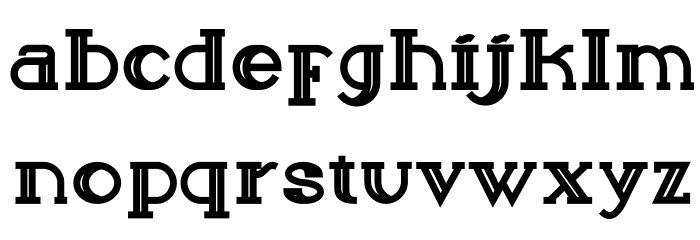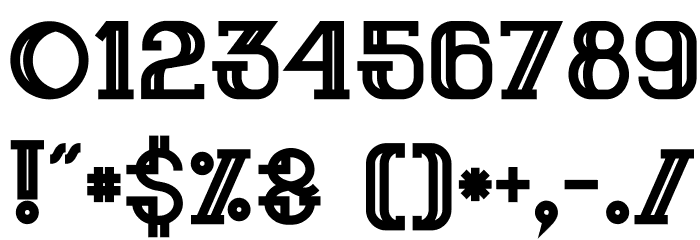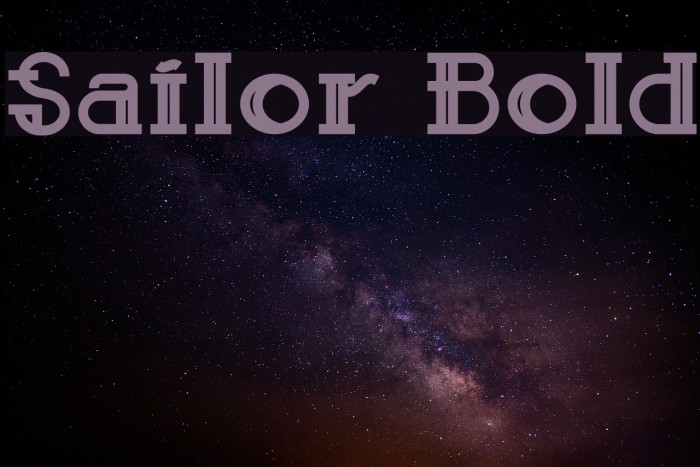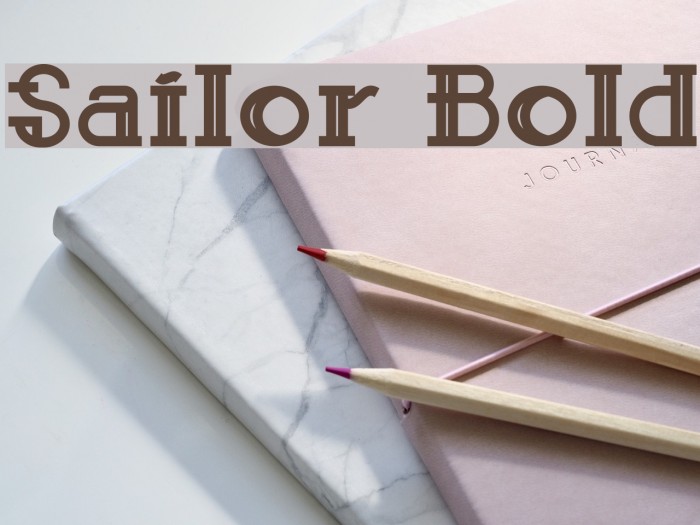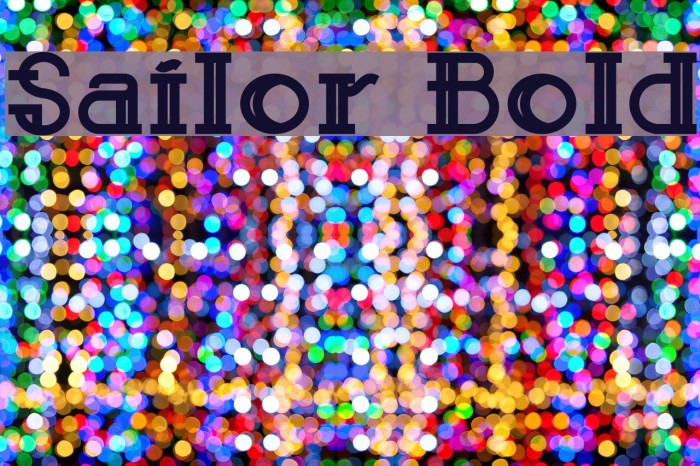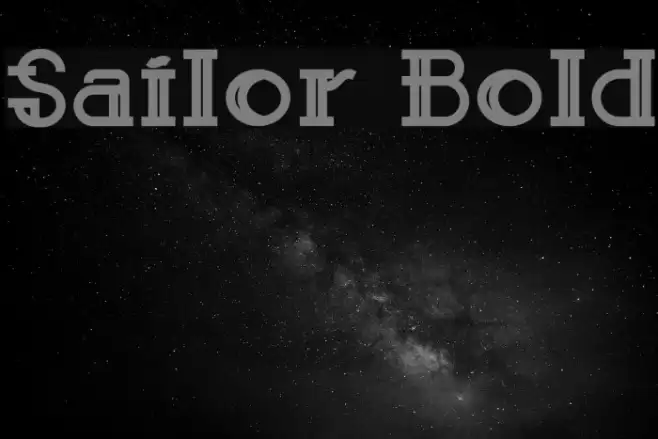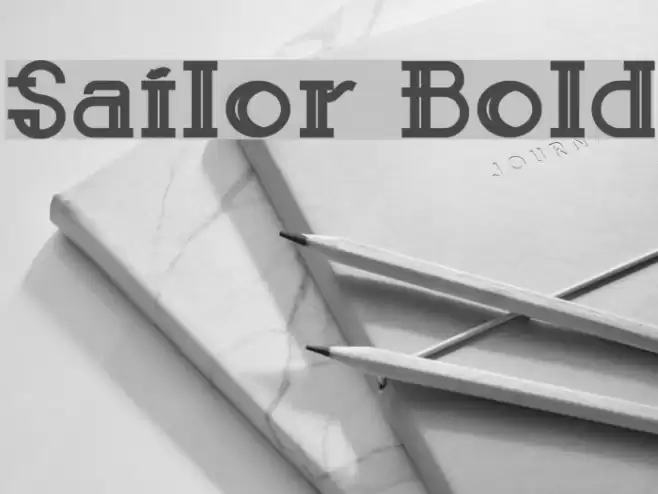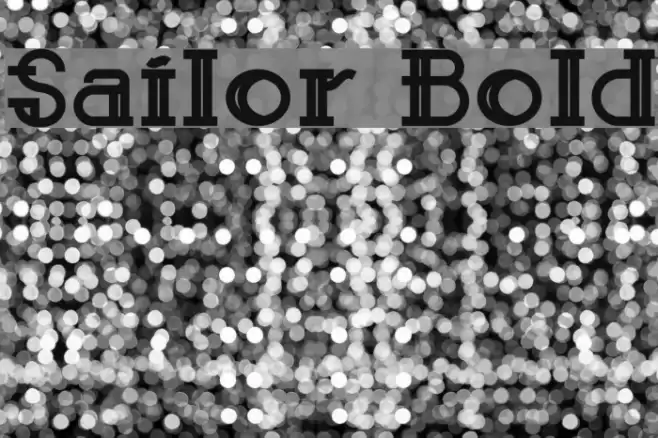
Sailor Bold Font
This font features a bold and striking design with a nautical theme, characterized by its thick, slab-like serifs and strong geometric shapes. The uppercase letters are particularly prominent, with a distinct emphasis on horizontal lines and curves that evoke a sense of strength and stability. The lowercase letters maintain the boldness of the uppercase, with rounded edges that add a touch of softness to the overall appearance. Numbers and special characters are equally robust, ensuring consistency across all elements. This font's unique style makes it ideal for projects that require a bold statement, blending traditional serif elements with a modern twist.
A bold, nautical-themed slab serif font with strong geometric shapes.
- Proposed Projects: Ideal for branding, posters, and signage that require a bold, nautical aesthetic.